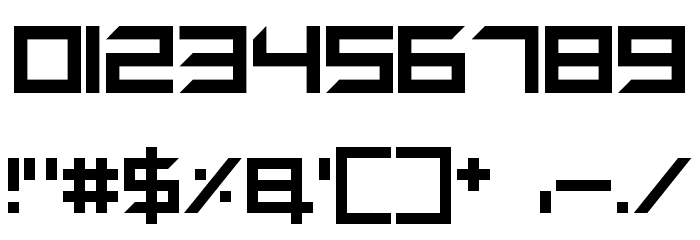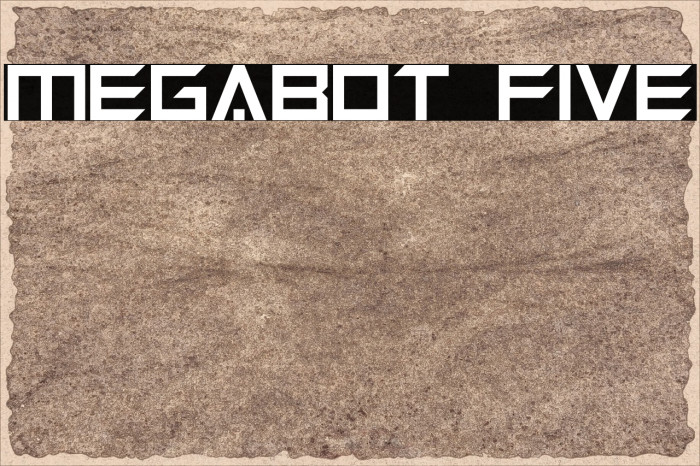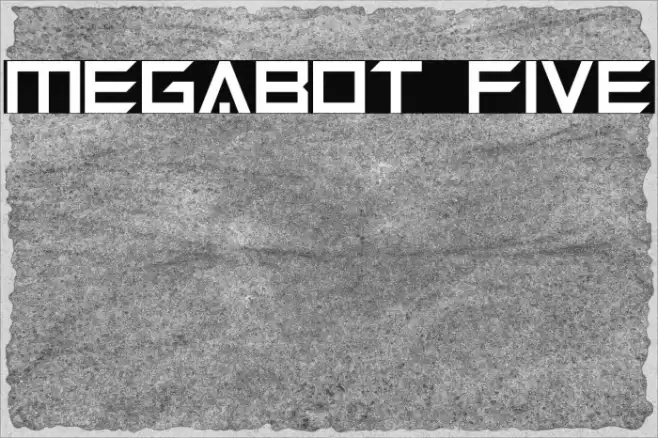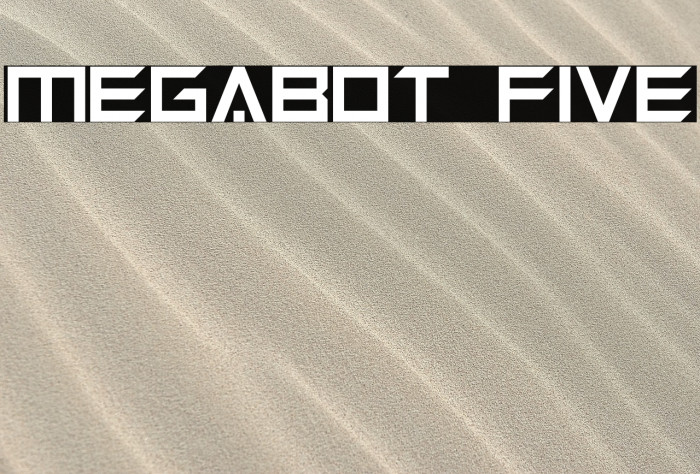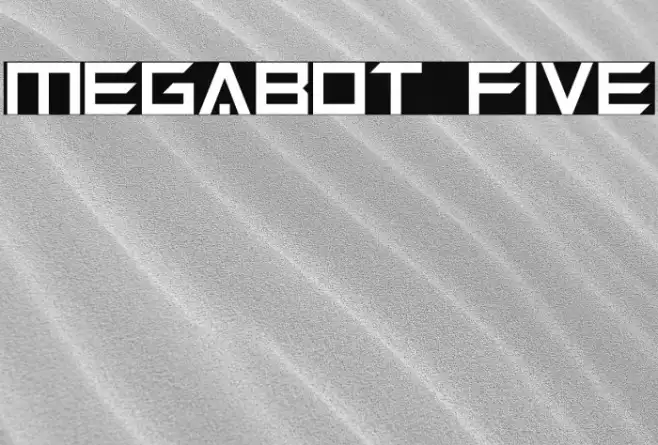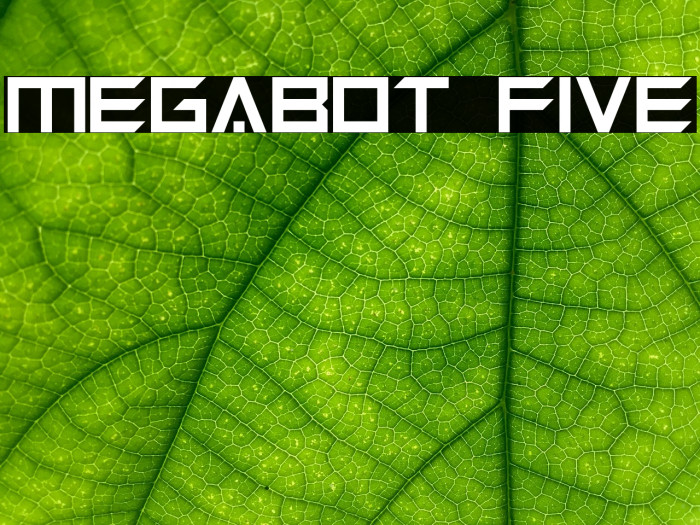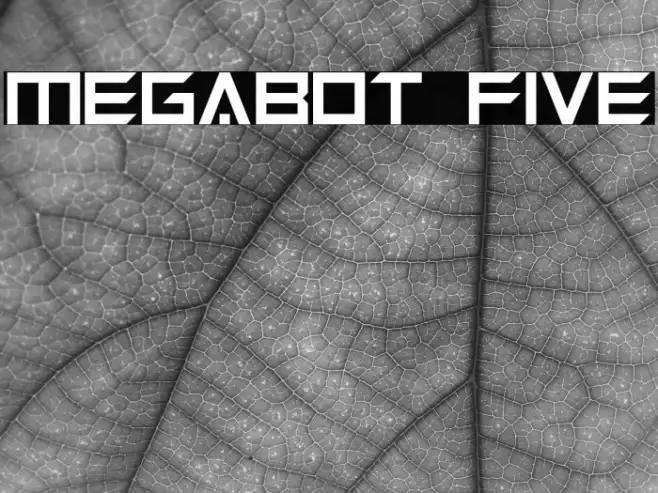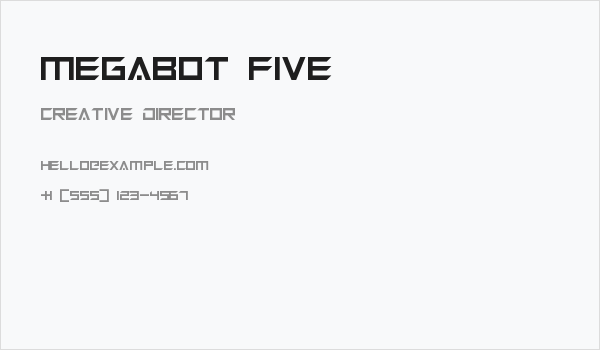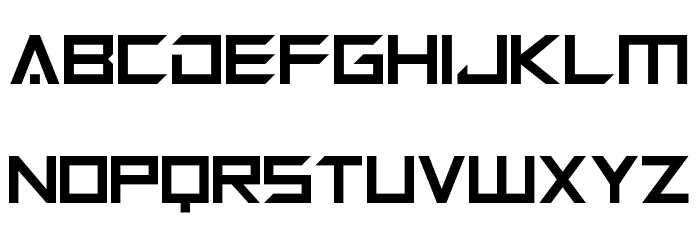
Megabot Five Font
Megabot Five Description
This font features a bold, futuristic design with sharp angles and geometric shapes, giving it a distinctly modern and technological appearance. The uppercase and lowercase letters maintain a consistent style, characterized by straight lines and angular cuts that create a sense of movement and energy. The numerals and special characters follow the same design principles, ensuring uniformity across all glyphs. The font's strong presence makes it ideal for projects that require a contemporary and dynamic look. Its unique style is well-suited for digital interfaces, gaming titles, and tech-related branding.